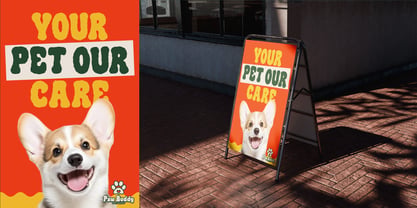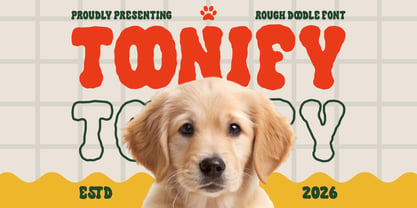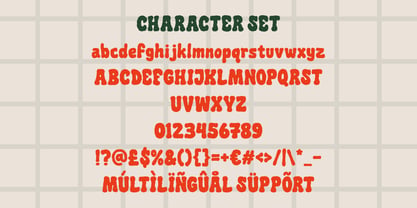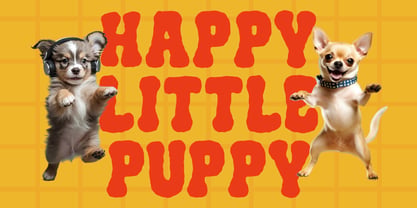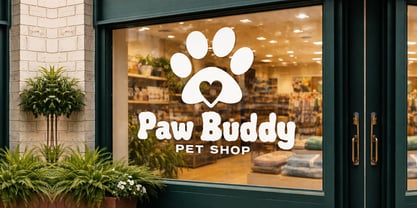
Toonify
by Shanaf
The Toonify Font Family was designed by Yesie Erma Yunita and published by Shanaf. Toonify contains 2 styles and family package options. More about this family
Toonify Bold Doodle Font features chunky letterforms with thick strokes and soft irregular edges. The shapes appear heavy and rounded, creating a strong visual presence in headlines. Each character shows uneven contours that mimic hand-drawn doodle lines. Stroke weight stays bold and consistent, giving the font a solid and friendly structure. The proportions feel slightly wide with compact height, making words look dense and impactful. Counters are simple and open enough to keep readability at large sizes. Terminals look soft and organic, reinforcing the casual and playful tone. The texture feels rough and natural, similar to marker or doodle sketch styles. This font blends cartoon aesthetics with expressive display typography, delivering a fun and approachable character. This font suits branding projects focused on pet businesses and animal related products. It works well for pet shop logos, grooming services, and animal care branding. The bold style supports posters, advertising headlines, and storefront signage. It performs effectively in packaging, product labels, and promotional materials. Designers can use it for stickers, greeting cards, invitations, and playful quote designs. The friendly shapes also fit book covers, magazine titles, and children themed projects. It aligns with themes such as pets, animals, toys, and cheerful branding concepts. Toonify Bold Doodle Font helps create engaging visual identity with a lively and cartoon-inspired style.
Designers: Yesie Erma Yunita
Current Foundry: Shanaf